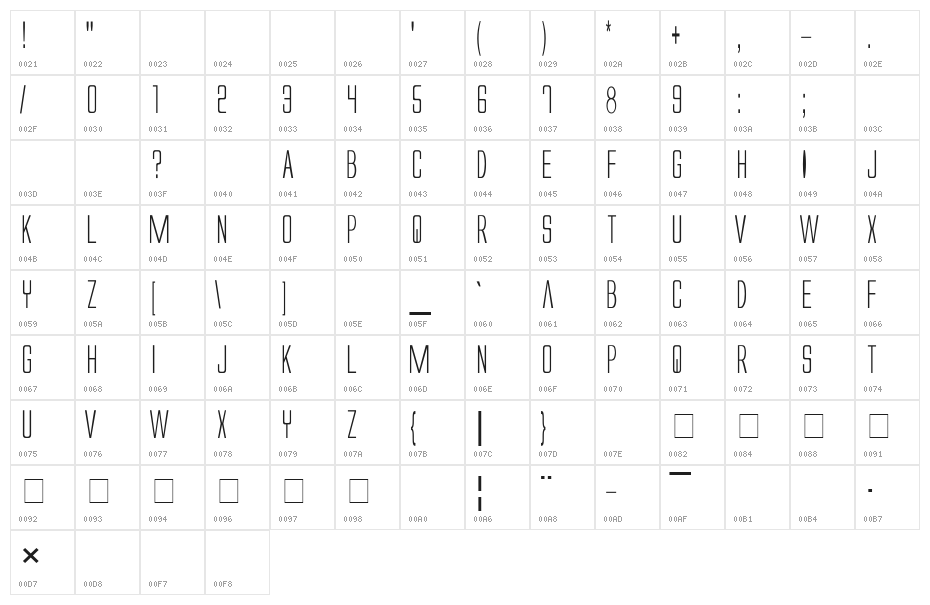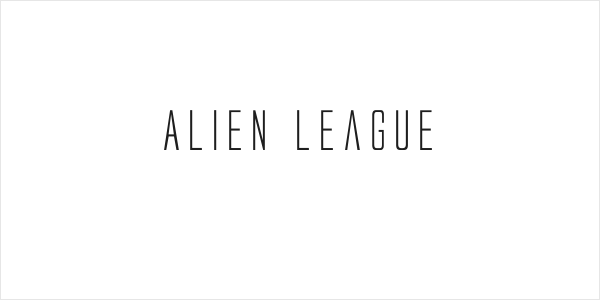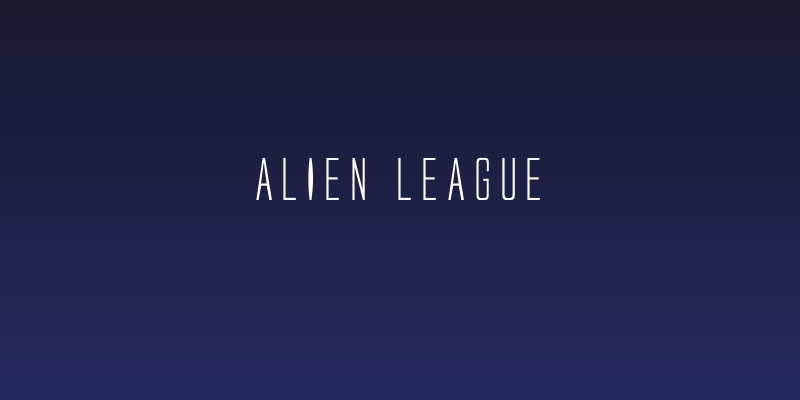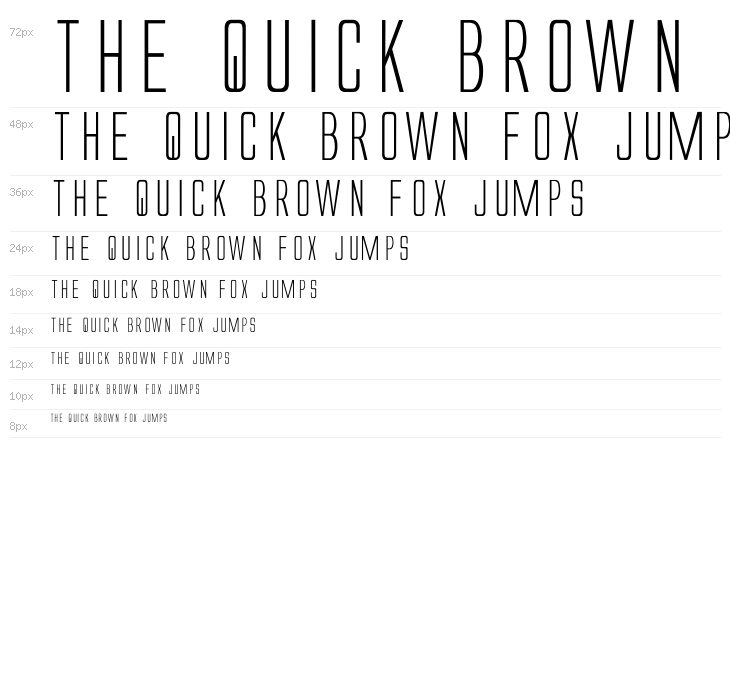
Alien League Font
Alien League Description
This font features a futuristic and sleek design with elongated, narrow characters that convey a sense of modernity and innovation. The uppercase letters are tall and slender, with unique geometric shapes that give them a distinct, otherworldly appearance. The lowercase letters maintain a consistent style, complementing the uppercase with their elongated forms. Numbers are similarly styled, ensuring a cohesive look across all characters. The special characters are designed to match the overall aesthetic, adding to the font's versatility. This font is ideal for projects that require a modern, sci-fi, or tech-inspired look.
| Proposed Projects | Ideal for sci-fi movie posters, tech company logos, video game titles, and futuristic-themed designs. |